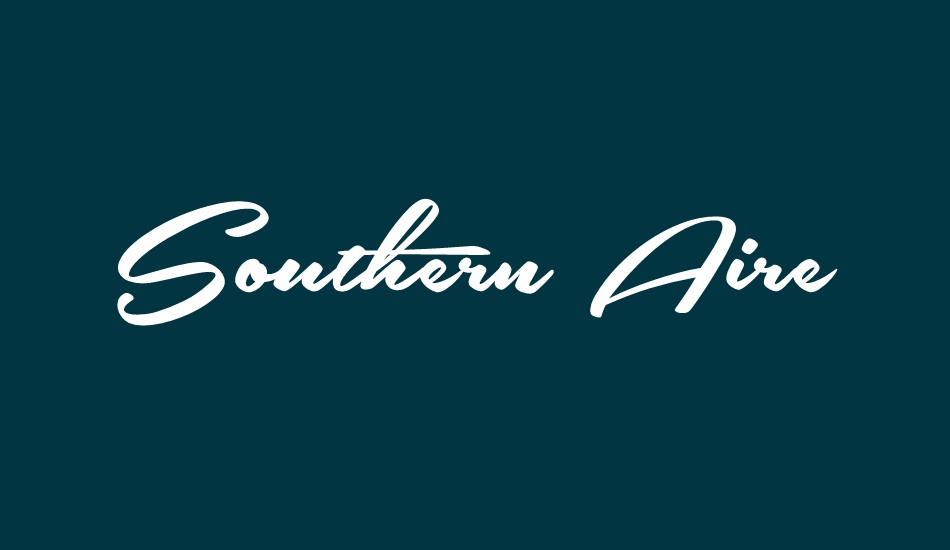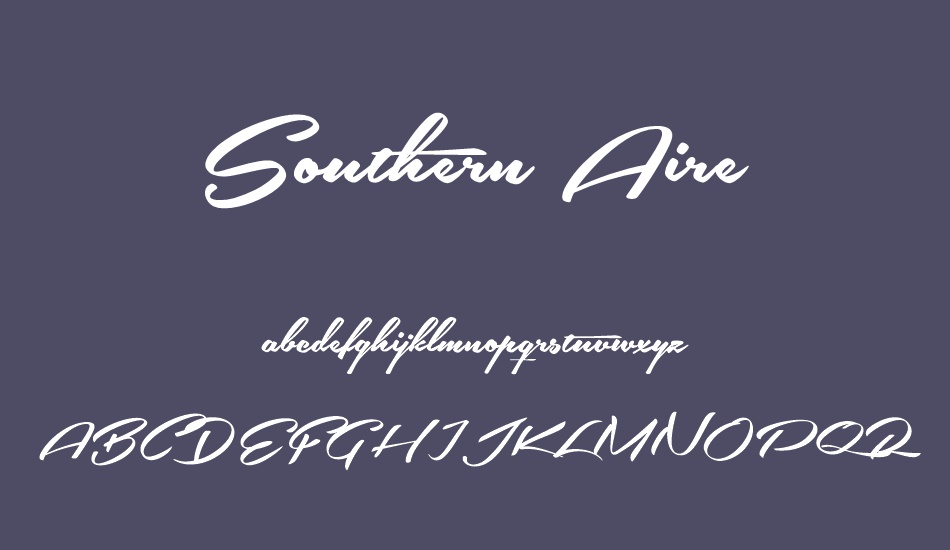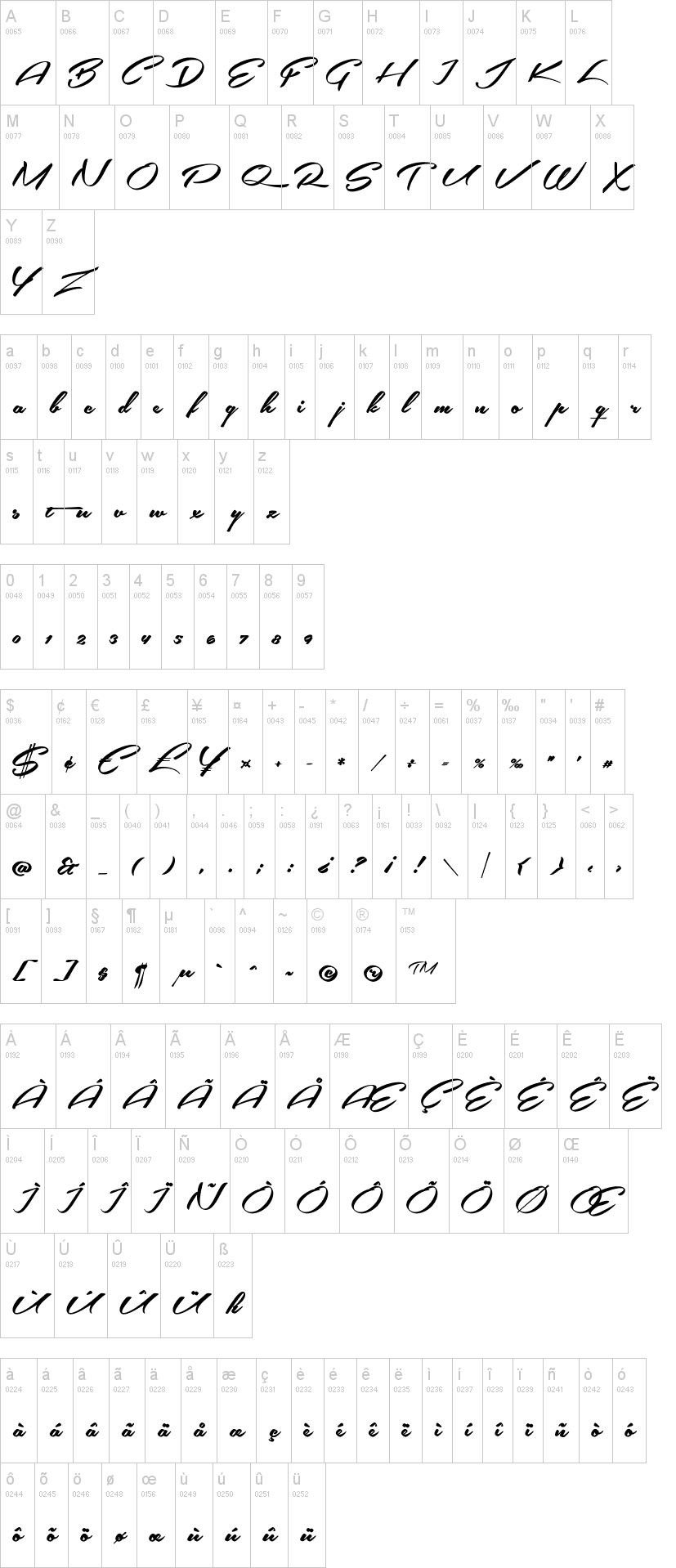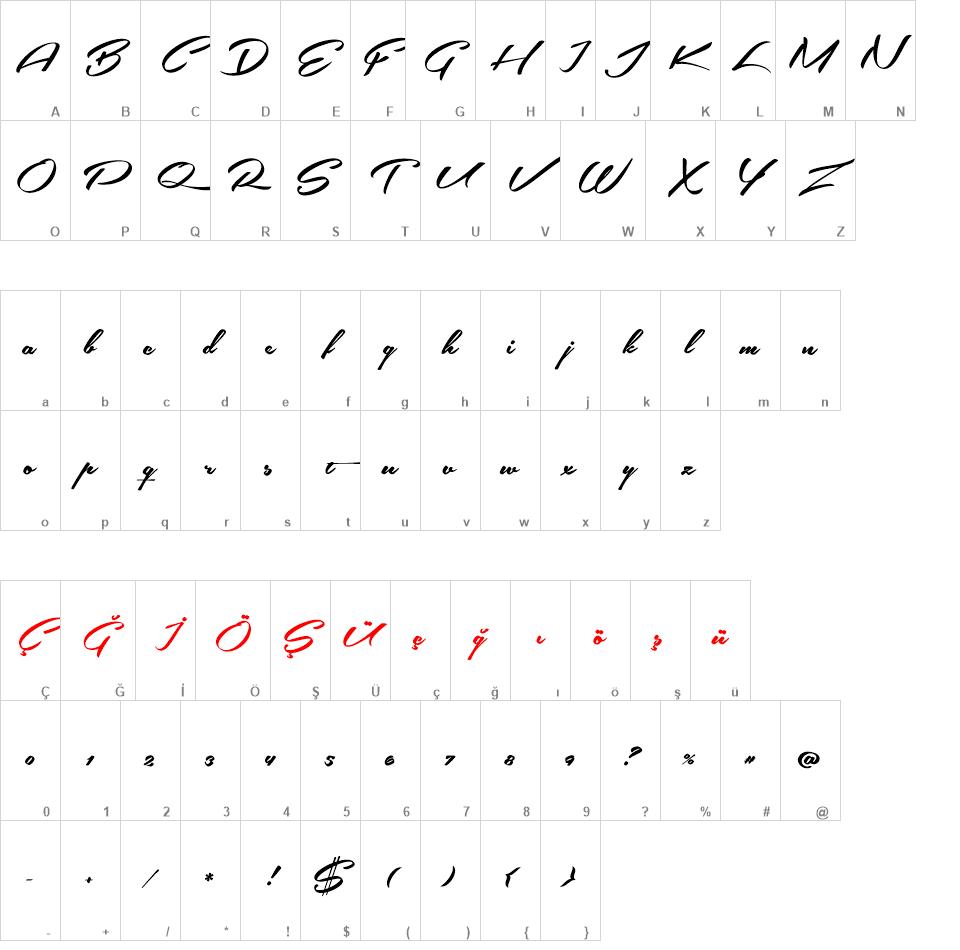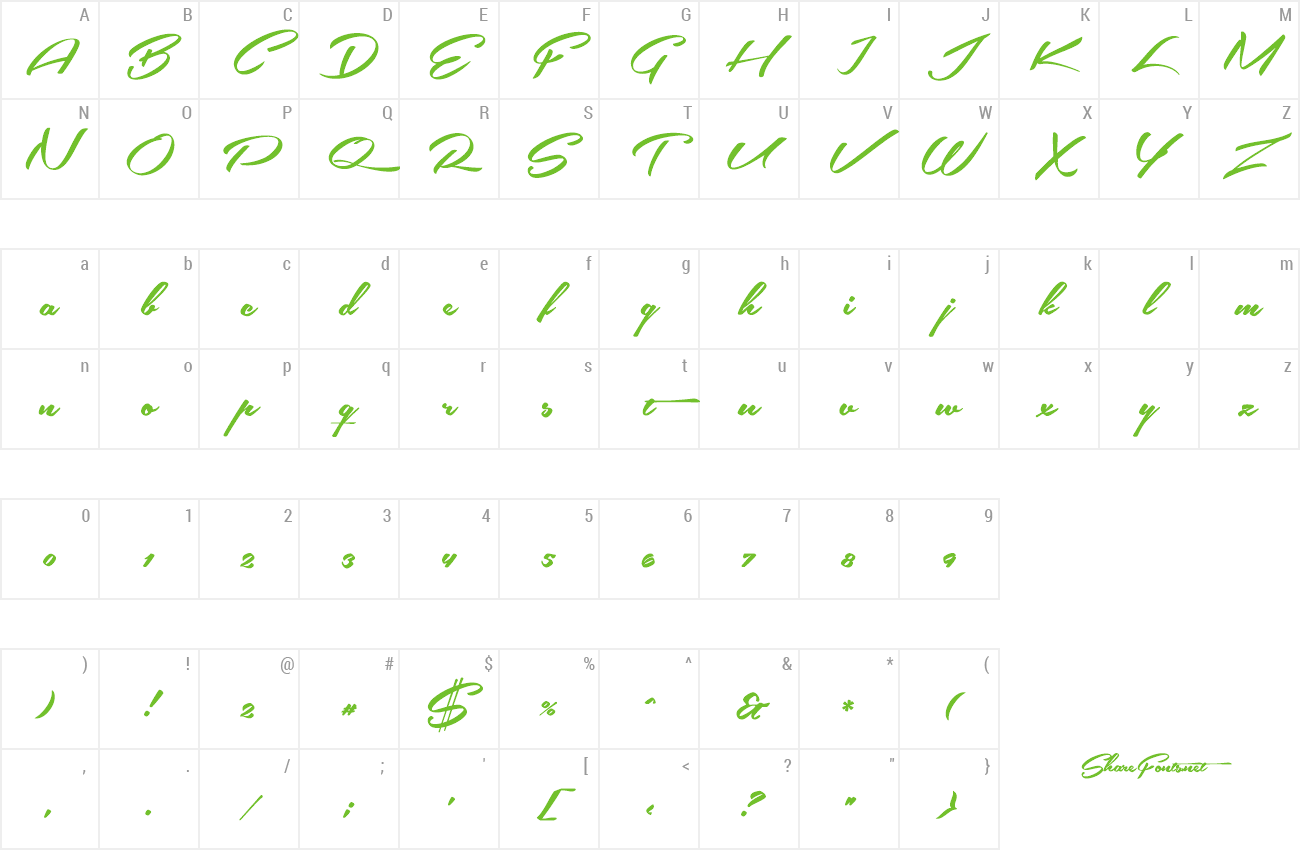
Font Southern Aire
Font Southern Aire - Category script , cursive ,. Southern aire is a script type font that can be used on any. Web southern aire is a free font for personal use created by måns grebäck.
Web Southern Aire Is A Free Font For Personal Use Created By Måns Grebäck.
Category script , cursive ,. Southern aire is a script type font that can be used on any.